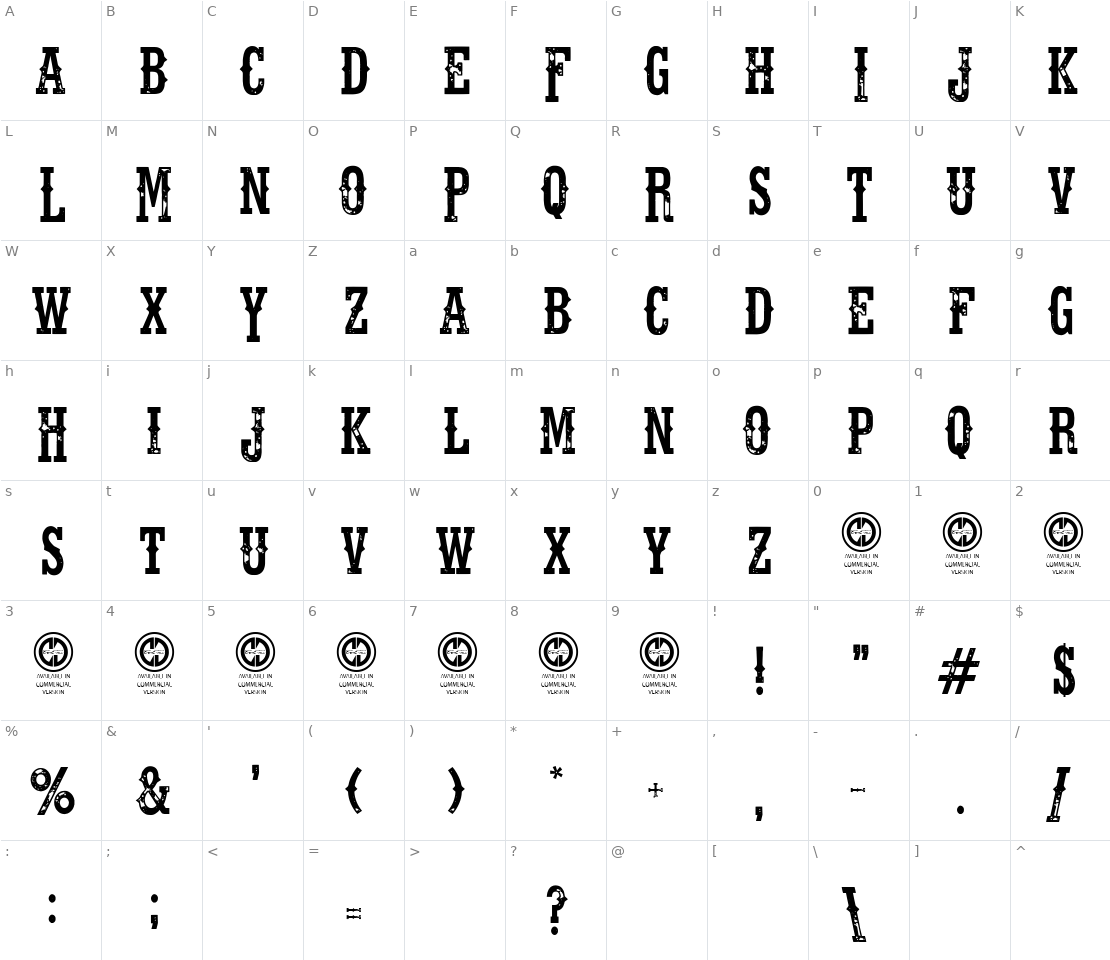
Fort Death
Fort Death is a bold, condensed slab serif from Chris Vile with heavy distressing that makes it look like it was pulled off a sun-bleached wanted poster. The weathered texture and tight proportions give it real frontier grit, landing squarely in Old West territory. Built for headlines, posters, and vintage western branding where you want type that feels like it's been through a dust storm.